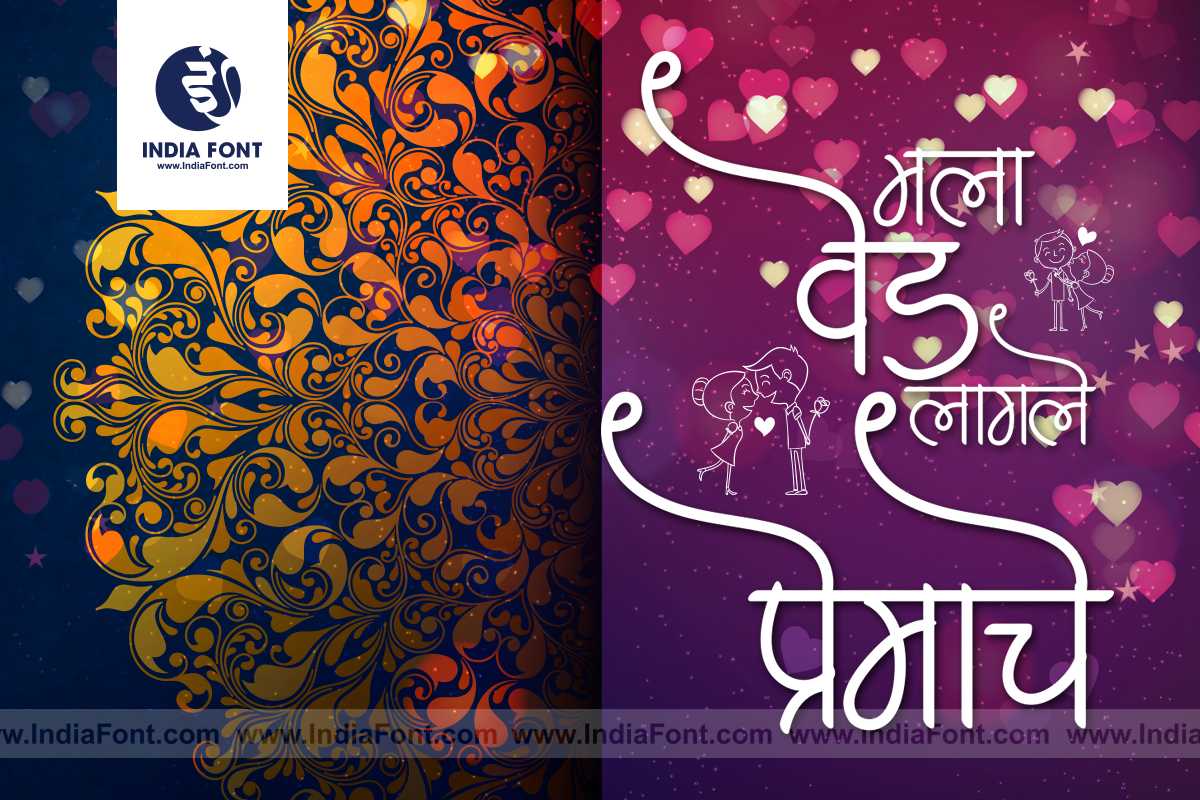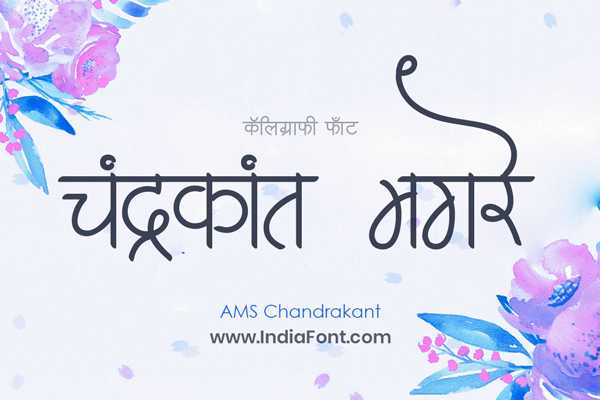
AMS Chandrakant
Experience the artistry of AMS Chandrakant, a captivating calligraphy font. With its graceful strokes and intricate details, this Hindi and Marathi font captures the essence of elegance and sophistication.
About AMS Chandrakant Font
Experience the artistry of AMS Chandrakant, a captivating calligraphy font. With its graceful strokes and intricate details, this Hindi and Marathi font captures the essence of elegance and sophistication. This calligraphy font combines elegance with functionality, making it perfect for various design applications.
AMS Chandrakant is a professionally crafted calligraphy typeface that brings clarity and style to your projects. Designed with attention to detail, it supports hindi and marathi characters flawlessly.
Whether you're working on wedding-materials, invitations, logos, or other creative projects, AMS Chandrakant delivers consistent performance across both digital and print media. This carefully designed typeface ensures readability and visual appeal in all your design work.
About AMS Chandrakant Typography Style
AMS Chandrakant is a professionally crafted calligraphy font that exemplifies modern Hindi typography design. This free font is perfect for designers seeking professional branding and logo design projects.
Available in 1 weight and supporting hindi, marathi scripts, AMS Chandrakant offers exceptional versatility for both digital and print media. Whether you're working on wedding-materials, invitations, logos, this carefully designed typeface ensures consistent quality and professional results across all your typography projects.